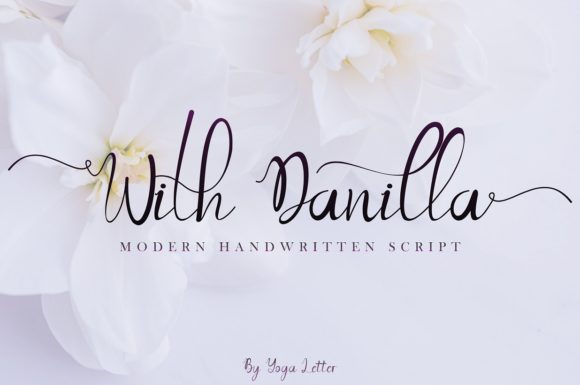
Embark on a typographic adventure with With Danilla Font, a captivating script font family that will transform your creative projects into works of art.
With Danilla is a modern handwritten script font that captivates with its varying baseline, smooth lines, gorgeous glyphs, and stunning alternates. Experience the authentic feel of this font and let your imagination soar as you create breathtaking wedding invitations, stunning stationary art, eye-catching social media posts, and adorable greeting cards.
With Danilla's PUA encoding, accessing the font's charming glyphs and swashes is a breeze. Unleash your creativity with a wealth of special features, including alternate glyphs and ligatures, to add depth and intrigue to your designs.
Immerse yourself in the world of With Danilla, where elegance and versatility unite to bring your creative visions to life. Its graceful lines dance across the page, evoking a sense of romance and sophistication. With Danilla is the perfect choice for those seeking a touch of charm and personality in their designs.
Step into the realm of With Danilla and discover a font that captures the essence of beauty and creativity. Let your imagination run wild as you explore the endless possibilities that await you with this remarkable script font.